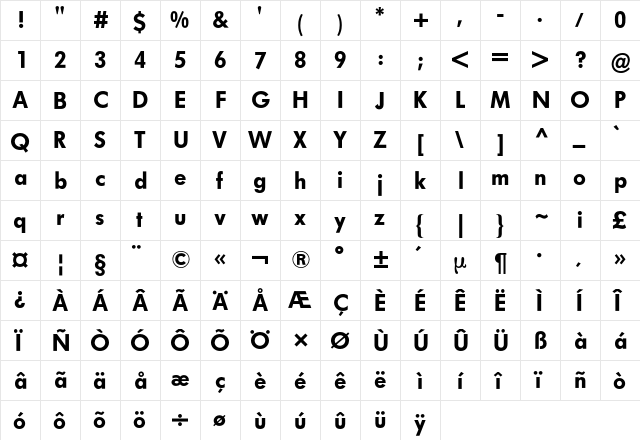
Futura BQ Regular
Design Context for Futura BQ Typeface
Futura BQ has a distinctly futuristic character, with geometric precision and clean angles that feel at home in technology, gaming, and sci-fi contexts.
Pro Tip: Try Futura BQ with generous letter-spacing in UI labels and navigation — the geometric forms benefit from room to breathe.